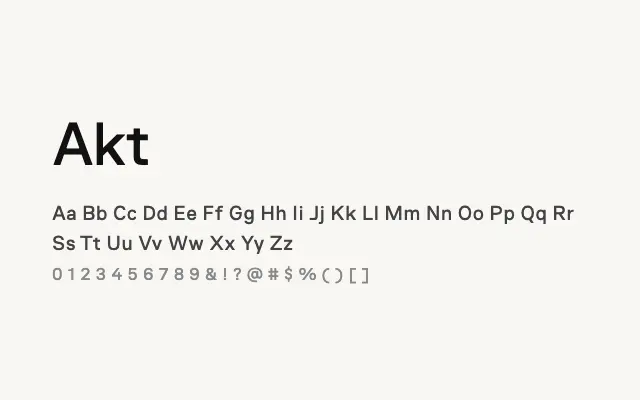
A versatile geometric sans with an extensive weight range and broad script coverage across Latin, Cyrillic, and Greek.
Akt offers nine weights from Thin to Black, making it a reliable workhorse for multi-platform projects requiring consistency across languages. Its geometric construction keeps it feeling modern and neutral, while the Cyrillic Extended and Greek support broadens its usefulness for international branding or editorial work. A solid choice for interface design, corporate identity, and multilingual publishing.
Akt is a clean, contemporary geometric sans-serif with a wide weight range and strong multilingual support including Cyrillic and Greek. Its forms are rational and precise, suited to corporate and editorial contexts.